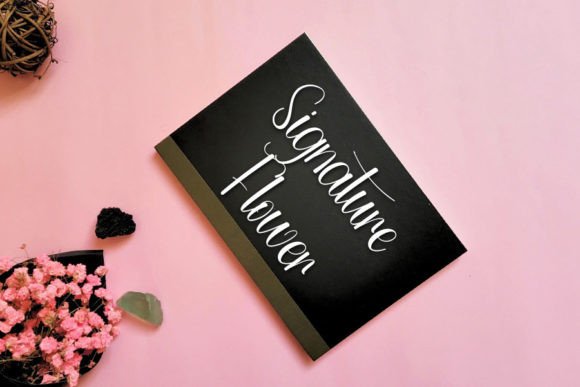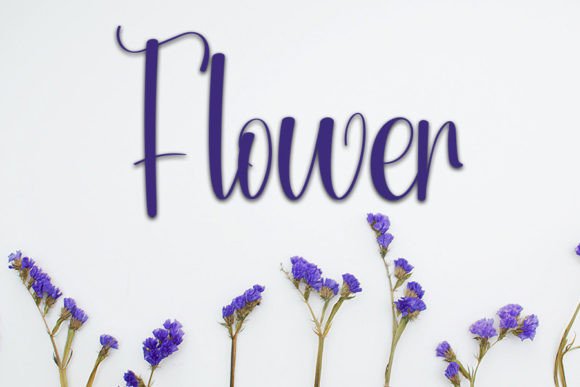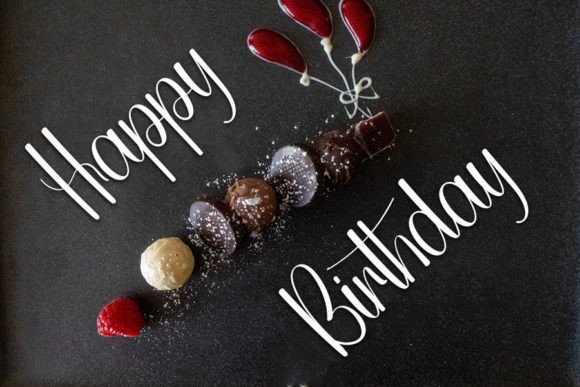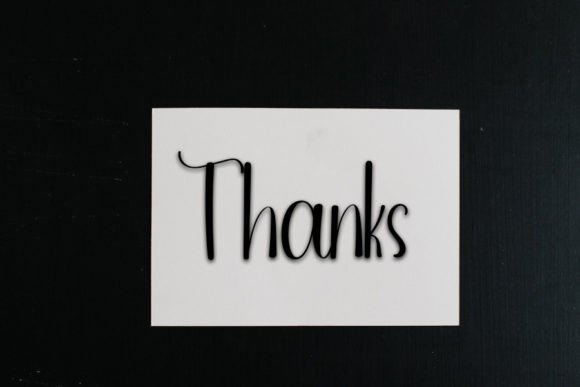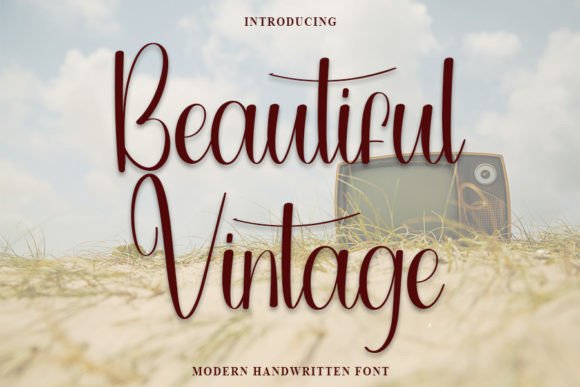
Discover the Timeless Charm of Beautiful Vintage Font
Are you on the hunt for a font that exudes elegance and sophistication? Look no further than the Beautiful Vintage Font, a stunning handwritten font that is sure to capture your heart. With its unique blend of classic charm and modern flair, this font is perfect for designers and crafters looking to add a touch of vintage glamour to their projects.
What Makes Beautiful Vintage Font So Special?
Beautiful Vintage is a neat and beautiful handwritten font that is described by an elegant touch, making it perfect for your favorite projects. Its incredibly distinct and timeless style is sure to fall in love with, and use it to create spectacular designs! The font’s elegant and refined aesthetic makes it ideal for a wide range of applications, from wedding invitations and branding materials to packaging and digital media.
The Characteristics of Beautiful Vintage Font
So, what sets Beautiful Vintage Font apart from other fonts? Here are just a few of its key characteristics:
- Elegant Handwritten Style: Beautiful Vintage Font features a beautiful, handwritten style that is both refined and elegant.
- Timeless Appeal: The font’s classic design ensures that it will never go out of style, making it a great choice for projects that require a timeless look.
- Unique Lettering: Each letter in the font has been carefully crafted to ensure that it is unique and visually appealing.
- Highly Versatile: Beautiful Vintage Font can be used for a wide range of projects, from digital media to print materials.
How to Use Beautiful Vintage Font in Your Projects
Beautiful Vintage Font is incredibly easy to use and can be applied to a wide range of projects. Here are a few ideas to get you started:
- Wedding Invitations: Add a touch of elegance to your wedding invitations with Beautiful Vintage Font.
- Branding Materials: Use the font to create stunning branding materials, such as logos, business cards, and letterheads.
- Packaging Design: Beautiful Vintage Font is perfect for packaging design, adding a touch of sophistication to product labels and packaging.
- Digital Media: Use the font to create stunning digital media, such as social media graphics, blog posts, and email newsletters.
Tips for Getting the Most Out of Beautiful Vintage Font
Here are a few tips for getting the most out of Beautiful Vintage Font:
- Experiment with Different Sizes: Beautiful Vintage Font looks great in a variety of sizes, so don’t be afraid to experiment to find the perfect size for your project.
- Pair it with Other Fonts: Beautiful Vintage Font pairs well with other fonts, so try combining it with a sans-serif font for a striking contrast.
- Use it in Combination with Images: The font looks great when used in combination with images, so try pairing it with a beautiful photograph or illustration.
In conclusion, Beautiful Vintage Font is a stunning handwritten font that is sure to capture your heart. With its elegant and refined aesthetic, timeless appeal, and highly versatile design, it’s the perfect choice for designers and crafters looking to add a touch of vintage glamour to their projects. So why wait? Download Beautiful Vintage Font today and start creating spectacular designs!